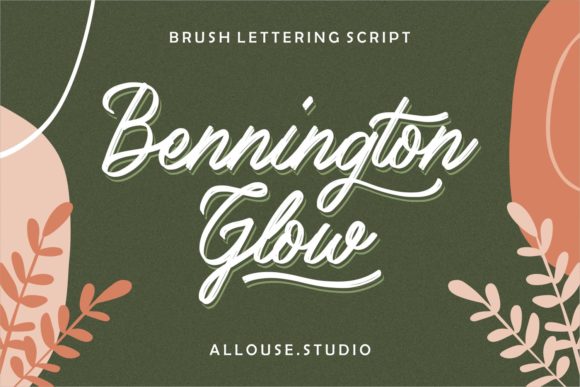
The Magic of Bennington Glow: A Handwritten Font to Elevate Your Designs
I’ll never forget the design project that led me to discover Bennington Glow. I was working on a branding project for a luxury candle company, and I needed a font that would evoke a sense of elegance and sophistication. As I scrolled through my font library, I stumbled upon Bennington Glow, and it was love at first sight ✨. This beautiful, flowing handwritten font was created with the help of a brush pen, and its retro vibe instantly resonated with my design aesthetic.
An Honest Review of Bennington Glow
- ✨ Elegant and sophisticated feel, perfect for luxury brands and high-end designs
- ✅ Beautifully crafted with a brush pen, giving it a unique, hand-written touch
- 💫 Retro vibe that adds a touch of nostalgia to any design
- 🔥 Highly versatile, suitable for a wide range of design projects, from logos to social media graphics
While Bennington Glow is an amazing font, there are a few things to keep in mind 🤔:
- ⚠️ Some characters may not be suitable for small font sizes, as they can appear a bit thin or washed out
- ⚠️ Limited availability of certain OpenType features, which may limit its use in certain design software
One of the best things about Bennington Glow is its OpenType features and glyphs. With a range of stylistic alternates and swashes, you can add more personality to your text and make it truly unique. Here are a few tips for exploring these features:
The Designer Inspiration Behind Bennington Glow
Bennington Glow was inspired by the classic designs of the past, with a focus on elegance and sophistication. The font’s creator was inspired by the retro style and wanted to create a font that would evoke a sense of nostalgia and luxury. With its beautiful, flowing lines and unique character, Bennington Glow is sure to add a touch of magic to any design.
Q: What is Bennington Glow?
A: Bennington Glow is a beautiful, handwritten font created with the help of a brush pen. It’s perfect for designers, crafters, and creative hobbyists who want to add a touch of elegance to their designs.
Q: What kind of designs is Bennington Glow best suited for?
A: Bennington Glow is highly versatile and can be used for a wide range of design projects, from logos and branding to social media graphics and invitations.
Q: Is Bennington Glow available in different font styles?
A: Yes, Bennington Glow comes in a range of font styles, including regular, italic, and bold. You can also experiment with OpenType features and glyphs to add more personality to your text.